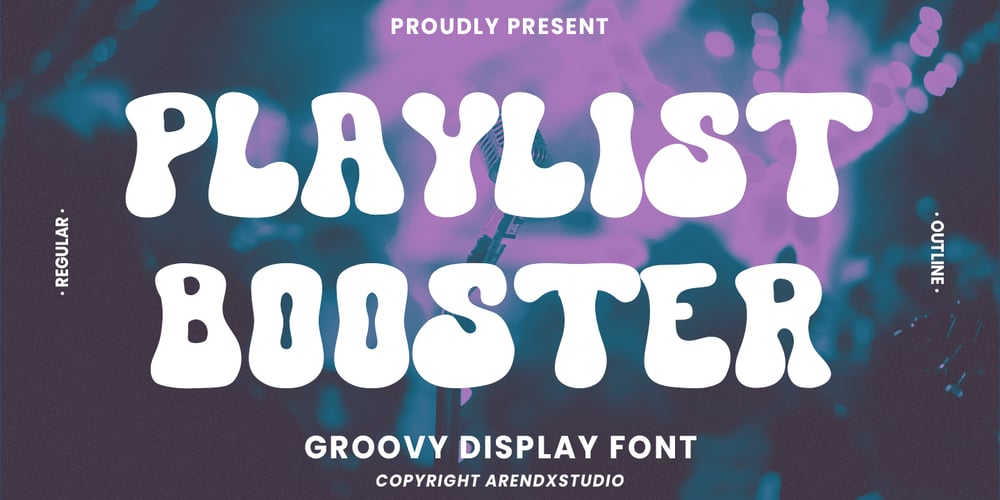
Playlist Booster
Playlist Booster font
Playlist Booster Font Family was designed by Asep Rendi and published by Arendxstudio. Playlist Booster contains 2 styles and family package options. Playlist Booster – Display Font is a free style font that has the characteristics of street art that shows freedom and is filled with unique charactersFeatures : • Character Set A-Z • Numerals & Punctuations (OpenType Standard) • Accents (Multilingual characters) Outline